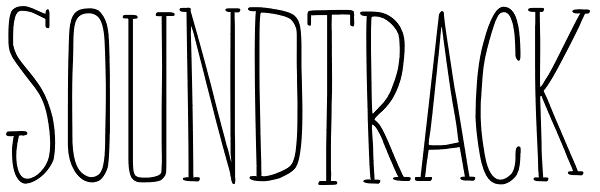
Soundtrack
Simple and charming, Soundtrack is a lively all-caps font that brings two versions for each letter. Make your choices by simply typing the upper or lower case keys or switch on the Contextual Alternates feature on any OpenType savvy program to...
Soundtrack